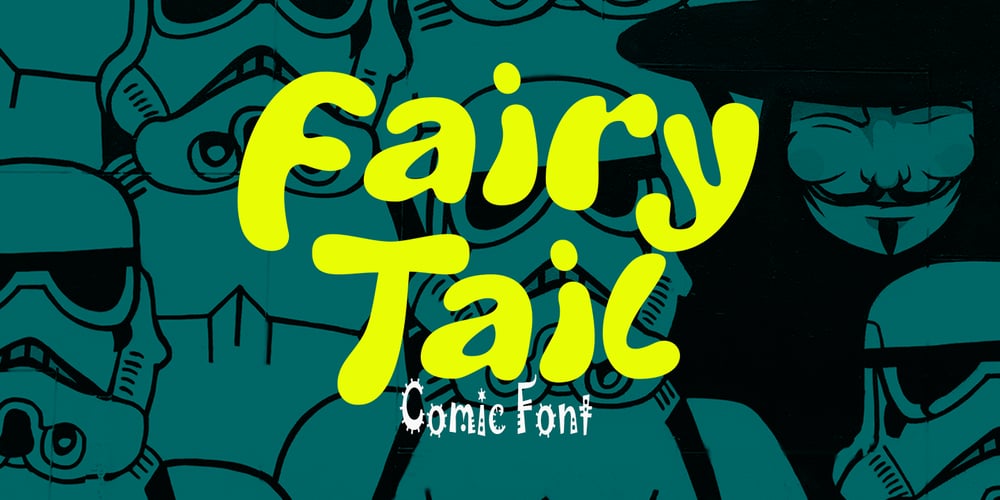
Fairy Tail Font Family was designed by khaidir and published by Gatype. Fairy Tail contains 1 styles and family package options. Fairy Tail is a bold and friendly typeface designed specifically for headlines.All of the letters are chunky and rounded,which is probably the reason why they are visible from afar.The overall feel of the typeface is meant to be very casual and affable,so it is great for businesses that are fun, outgoing and sincere.